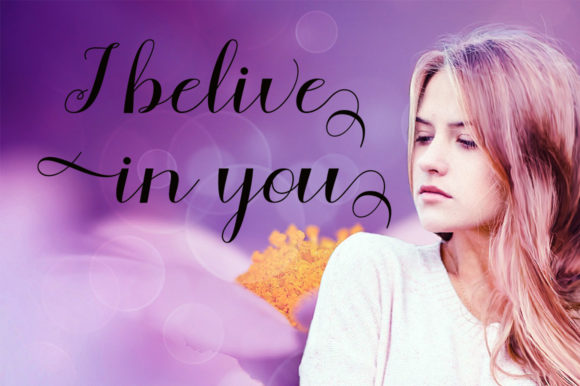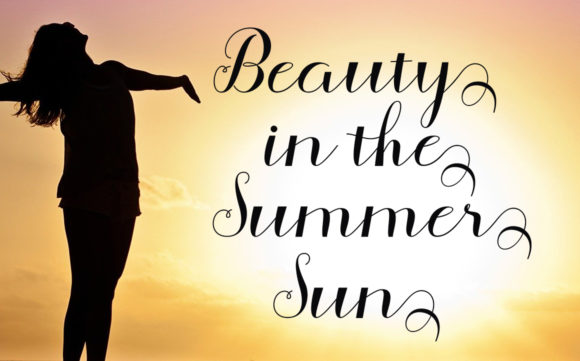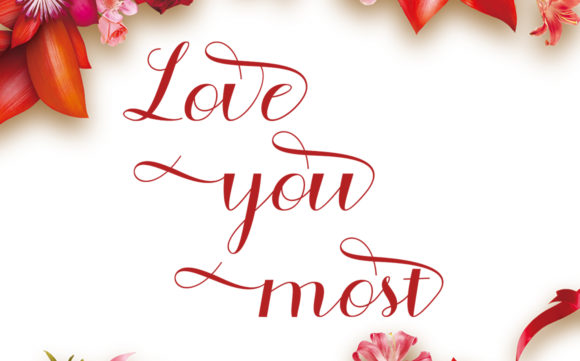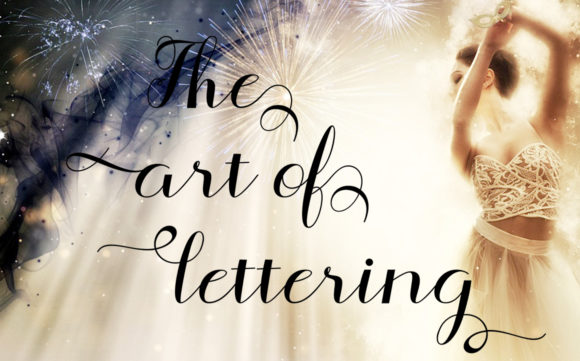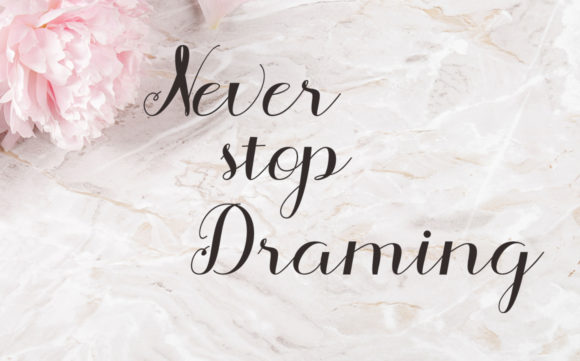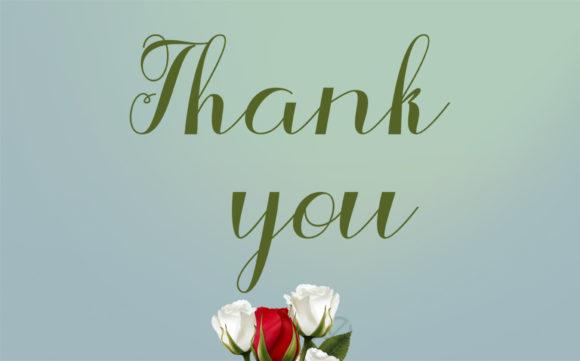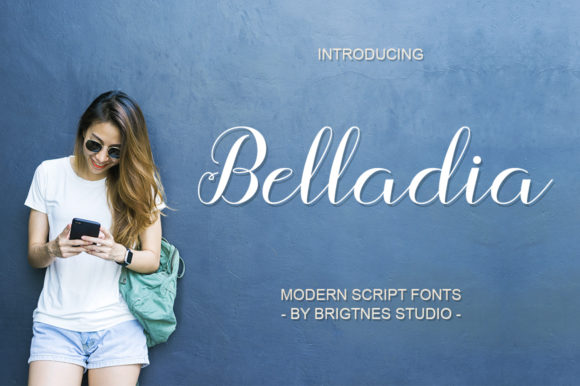
Belladia Font: The Ultimate Romantic Calligraphy Typeface
Are you a designer or crafter looking for a beautiful and elegant font to add a touch of romance and sweetness to your projects? Look no further than the Belladia font! This stunning calligraphy typeface is perfect for a wide range of applications, from logos and wedding invitations to headings, t-shirts, and more.
What is Belladia Font?
Belladia is a romantic and sweet calligraphy typeface that features characters that dance along the baseline, creating a sense of movement and fluidity. The font is designed to evoke a sense of elegance and sophistication, making it perfect for projects that require a touch of luxury and refinement.
Key Features of Belladia Font
- Romantic and Sweet Design: Belladia font features a beautiful, cursive design that is perfect for creating romantic and sweet-looking text.
- Dancing Characters: The characters in Belladia font dance along the baseline, creating a sense of movement and fluidity.
- PUA Encoded: Belladia font is PUA encoded, which means you can access all of the glyphs and swashes with ease.
- Versatile: Belladia font can be used for a wide range of applications, including logos, wedding invitations, headings, t-shirts, letterhead, signage, labels, news, posters, badges, and more.
Uses of Belladia Font
Belladia font is an incredibly versatile font that can be used for a wide range of projects, including:
- Logos: Create a beautiful and elegant logo for your business or brand with Belladia font.
- Wedding Invitations: Add a touch of romance and sweetness to your wedding invitations with Belladia font.
- Headings: Use Belladia font to create stunning headings for your website, blog, or social media channels.
- T-Shirts: Create custom t-shirts with beautiful and unique designs using Belladia font.
- Letterhead: Add a touch of elegance and sophistication to your letterhead with Belladia font.
- Signage: Use Belladia font to create stunning signage for your business or event.
- Labels: Create beautiful and elegant labels for your products or packaging with Belladia font.
- News: Use Belladia font to create stunning headlines and titles for your news articles.
- Posters: Create eye-catching posters with beautiful and unique designs using Belladia font.
- Badges: Use Belladia font to create stunning badges for your events or promotions.
Benefits of Using Belladia Font
There are many benefits to using Belladia font for your design projects, including:
- Elegance and Sophistication: Belladia font adds a touch of elegance and sophistication to any project.
- Romance and Sweetness: The font’s romantic and sweet design makes it perfect for projects that require a touch of whimsy and charm.
- Versatility: Belladia font can be used for a wide range of applications, making it a great addition to any designer’s toolkit.
- Easy to Use: The font is PUA encoded, making it easy to access all of the glyphs and swashes.
In conclusion, Belladia font is a beautiful and elegant calligraphy typeface that is perfect for designers and crafters looking to add a touch of romance and sweetness to their projects. With its dancing characters, PUA encoding, and versatility, Belladia font is a great addition to any designer’s toolkit. Whether you’re creating logos, wedding invitations, headings, t-shirts, or more, Belladia font is sure to impress.